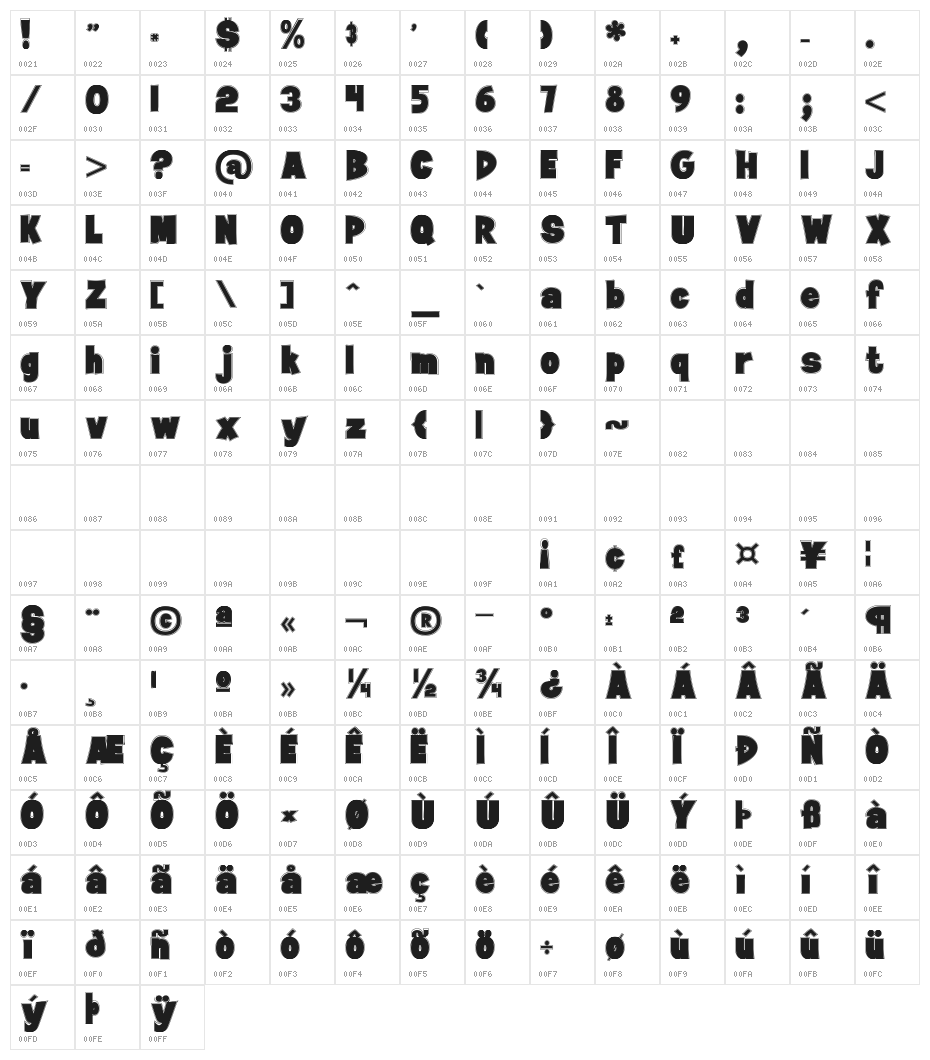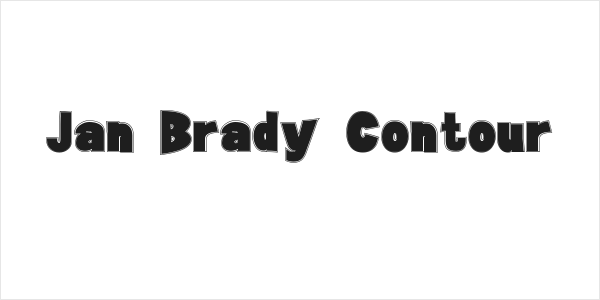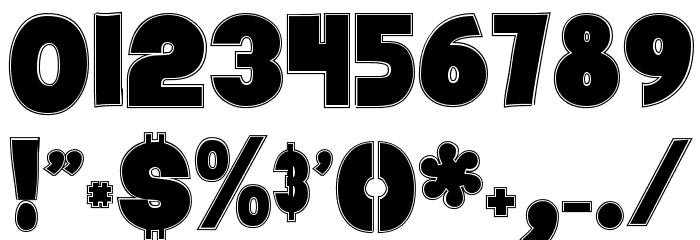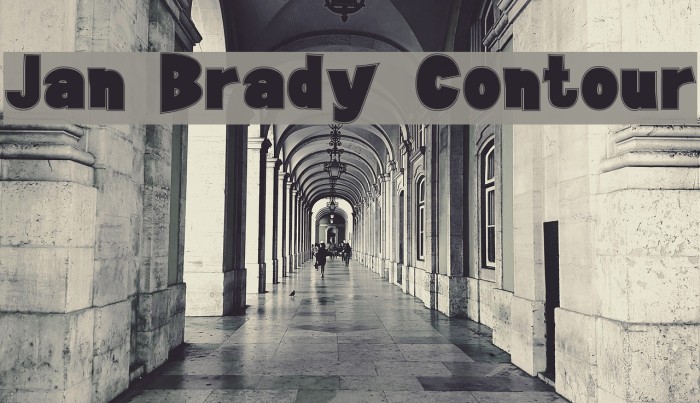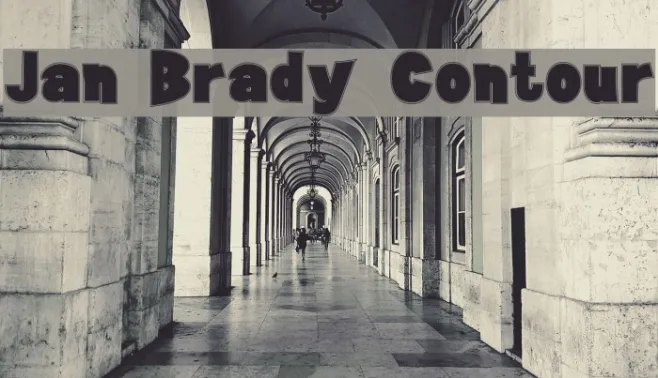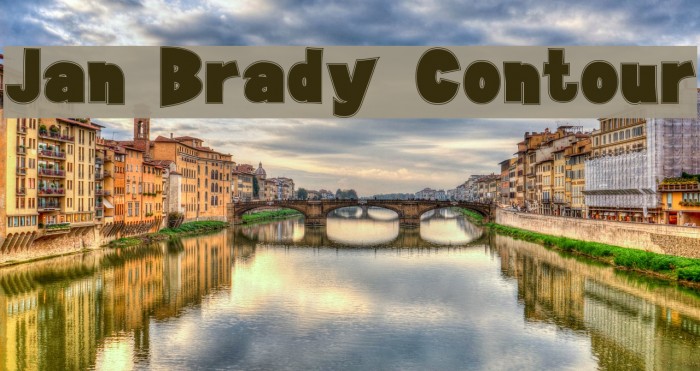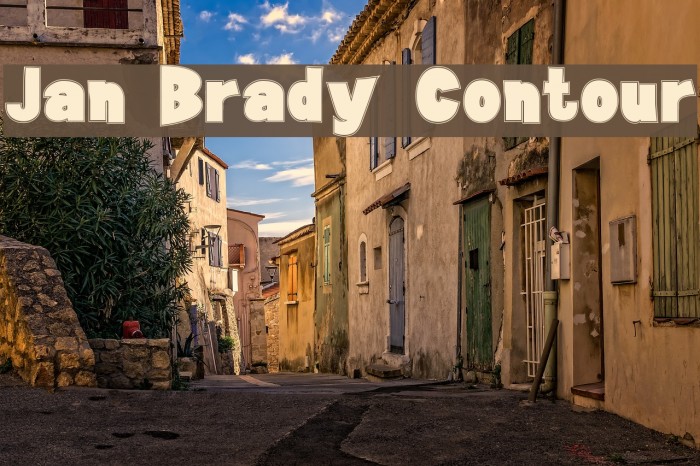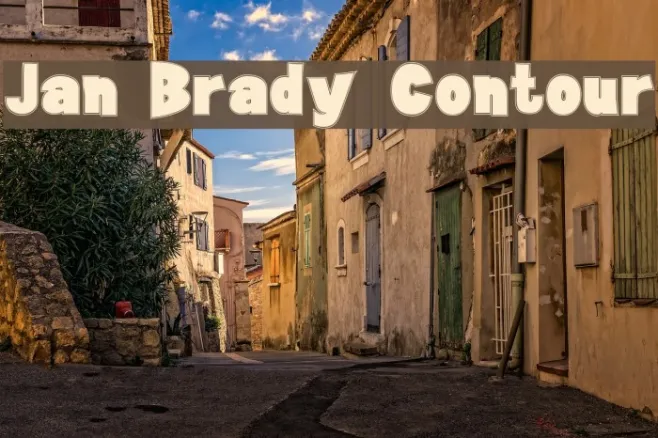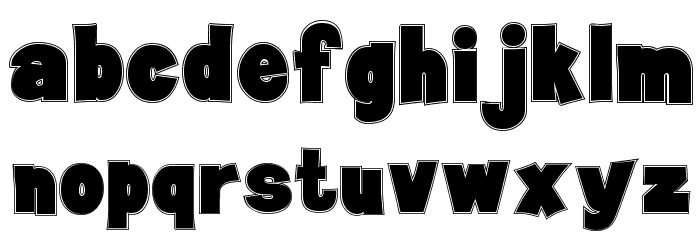
Jan Brady Contour Font
| Style général | Playful, Cartoonish, Bold |
| Cas d'utilisation | Headlines, Posters, Branding |
| Projets proposés | Ideal for posters, children's books, comic titles, and playful branding. |